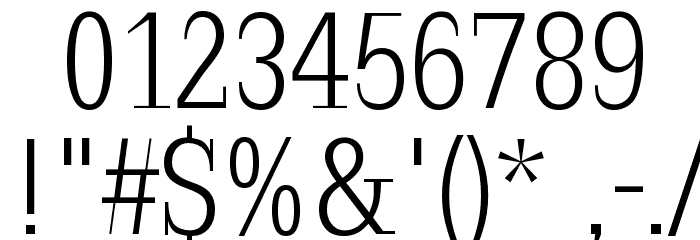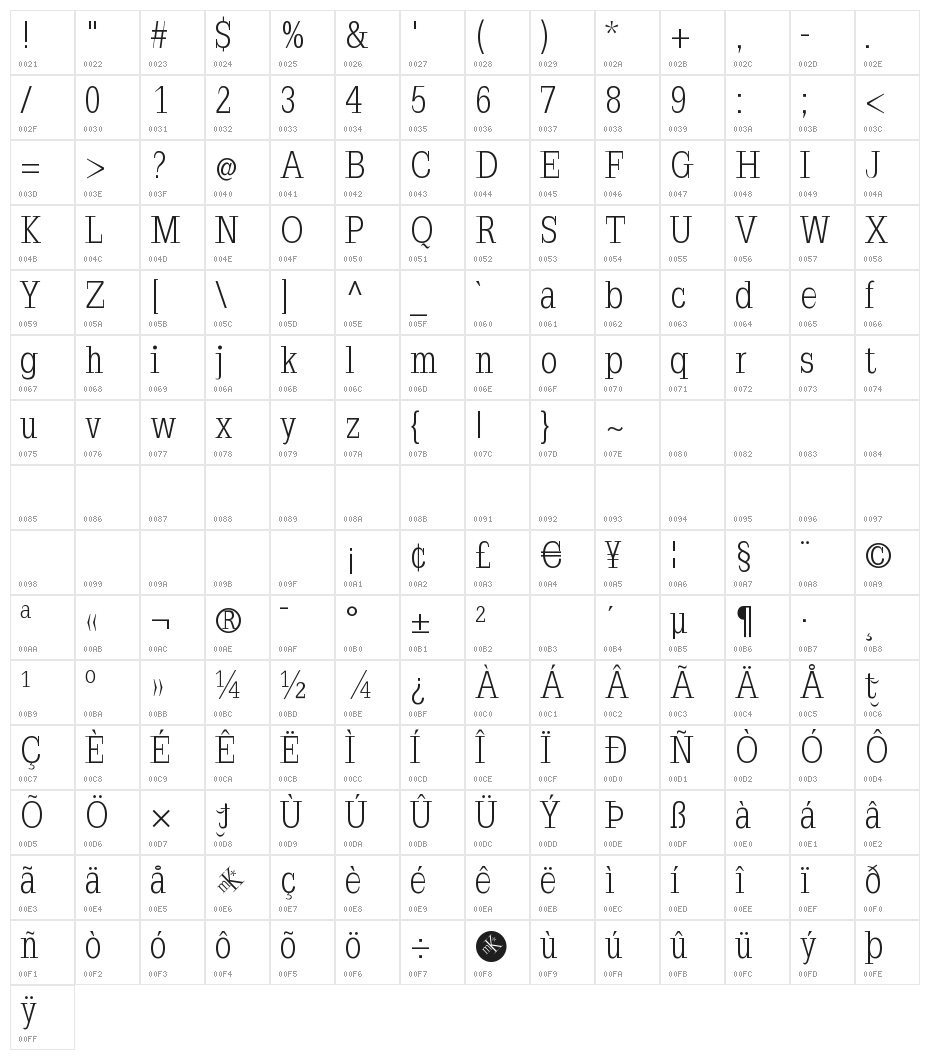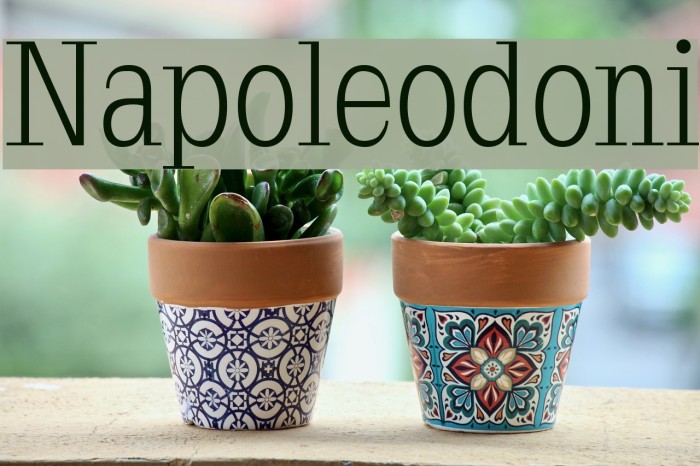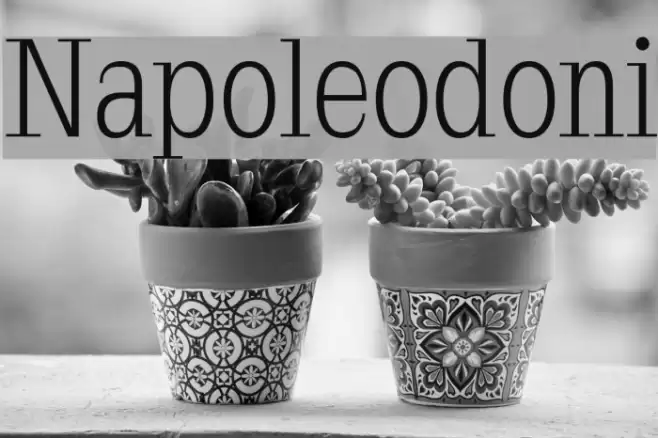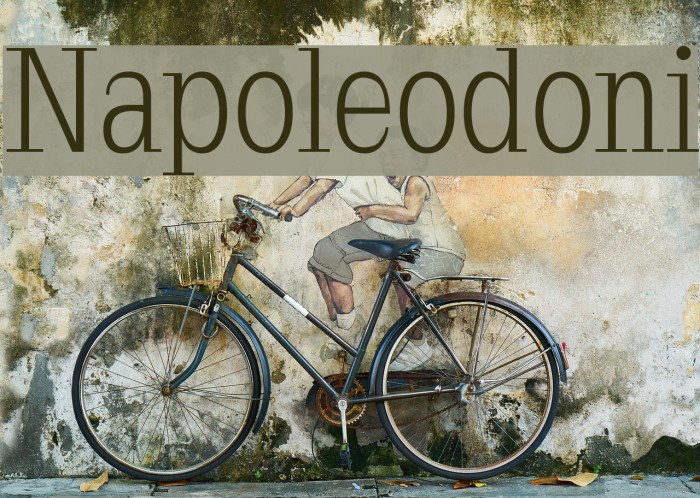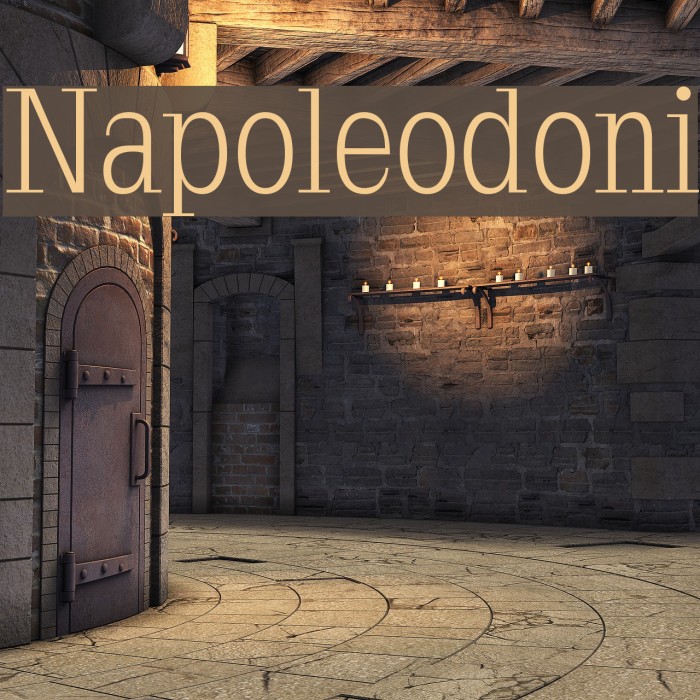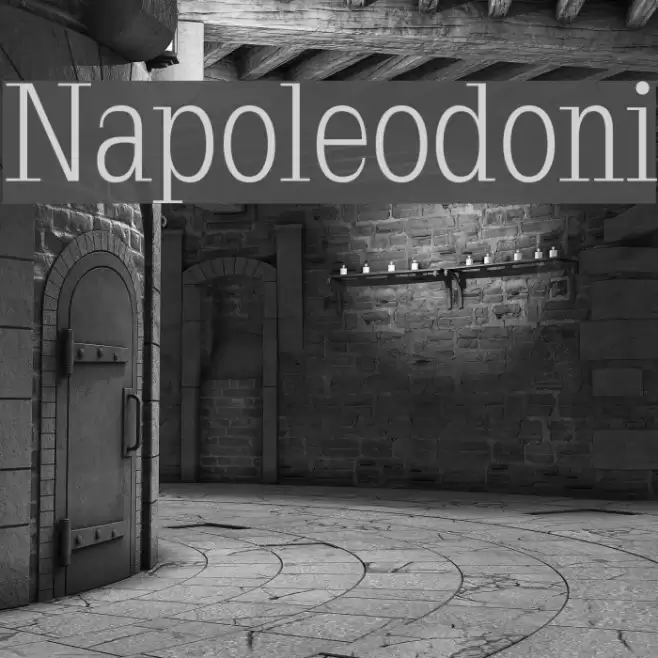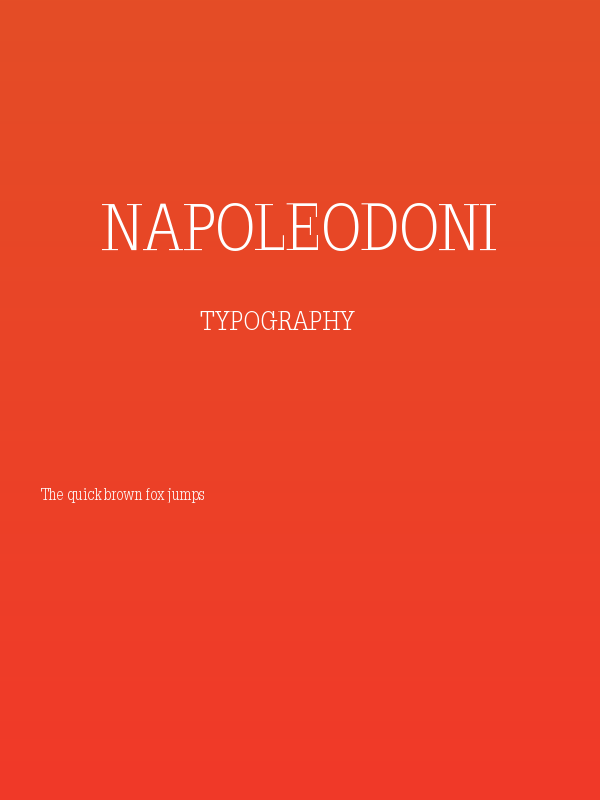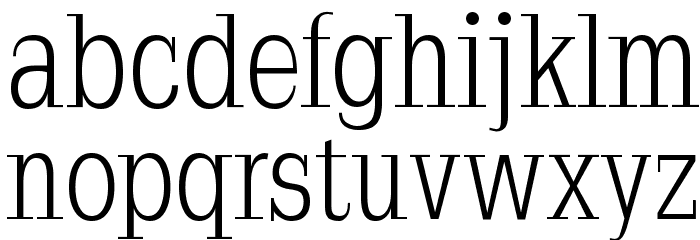
Napoleodoni Font
Napoleodoni Description
This typeface exhibits a classic serif style with a refined and elegant appearance. The characters are well-proportioned, featuring thin and thick strokes that create a sophisticated contrast. The serifs are sharp and pronounced, adding a touch of formality and tradition. The uppercase letters are tall and commanding, while the lowercase letters maintain a balanced and harmonious flow. The numerals are clear and distinct, making them easily readable. Special characters are included, maintaining the overall aesthetic of the font. This font is suitable for projects that require a touch of elegance and timelessness.
| Proposed Projects | Ideal for book covers, formal invitations, editorial layouts, and branding that requires a classic touch. |